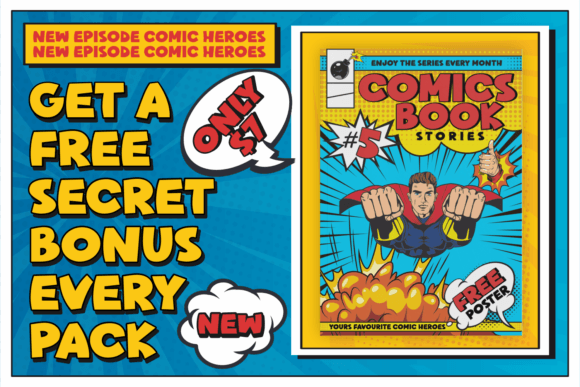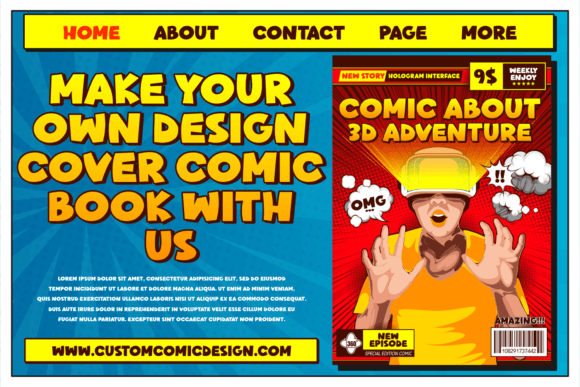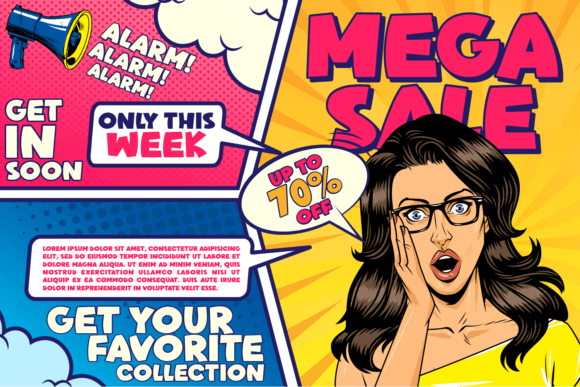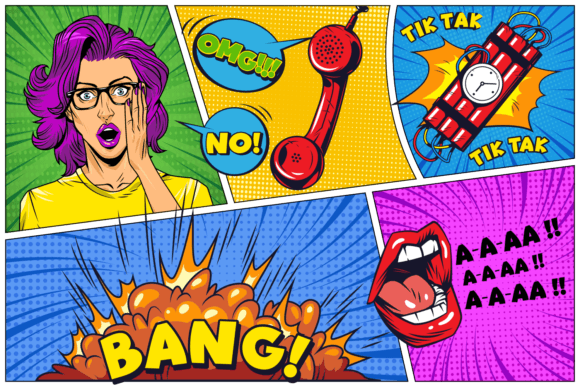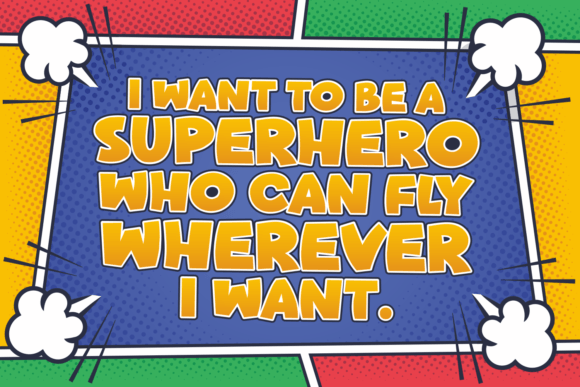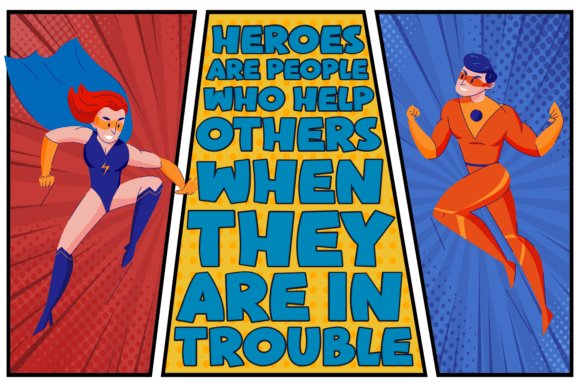
Bumm Font: The Ultimate Comic-Style Display Font for Designers
Are you tired of using the same old fonts in your designs? Look no further than the Bumm Font, a comic-style display font that’s sure to add a touch of retro charm to your projects. With its unique aesthetic and versatility, Bumm is an excellent addition to any design library.
The Retro Aesthetic of Bumm Font
Bumm Font boasts a distinctive retro look that’s reminiscent of classic comic books and vintage advertisements. Its bold lines, playful curves, and charming imperfections make it a standout among other display fonts. The font’s retro aesthetic is perfect for designers who want to add a touch of nostalgia to their designs, whether it’s for a poster, magazine cover, or advertising material.
Bumm Font is an incredibly versatile font that can be used in a wide range of design projects. Here are some ideas to get you started:
- Posters: Bumm Font is perfect for creating eye-catching posters for movies, events, or products. Its bold and playful design ensures that your message will stand out.
- Magazine Covers: Add a touch of retro charm to your magazine covers with Bumm Font. Its unique aesthetic is sure to grab the attention of potential readers.
- Advertising Materials: Bumm Font is ideal for creating advertisements that need to stand out. Whether it’s for a print ad, billboard, or social media campaign, this font is sure to make an impact.
- Branding: Use Bumm Font to create a unique and memorable brand identity. Its retro aesthetic can help your brand stand out in a crowded market.
Why Designers Love Bumm Font
So, what makes Bumm Font so special? Here are just a few reasons why designers love this font:
- Unique Aesthetic: Bumm Font has a one-of-a-kind retro aesthetic that’s sure to add a touch of personality to your designs.
- Highly Legible: Despite its bold and playful design, Bumm Font is highly legible, even at small sizes.
- Versatile: Bumm Font can be used in a wide range of design projects, from posters and magazine covers to branding and advertising materials.
Tips for Using Bumm Font
Here are a few tips for getting the most out of Bumm Font:
- Use it boldly: Bumm Font is designed to make a statement, so don’t be afraid to use it boldly. Experiment with different sizes and colors to create a dramatic effect.
- Pair it with a neutral font: Bumm Font is a bold and playful font, so it’s best paired with a neutral font that provides contrast. Try pairing it with a clean sans-serif font for a striking combination.
- Experiment with colors: Bumm Font looks great in a variety of colors, from bright and bold to muted and pastel. Experiment with different colors to find the perfect look for your design.